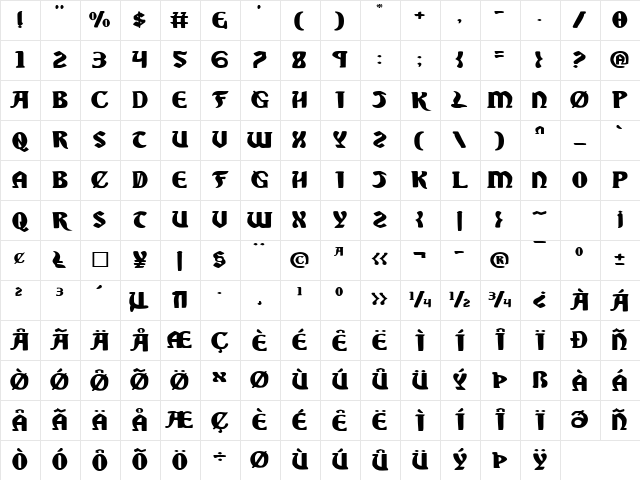
Complete Sable Lion Expanded glyph index. Displaying only characters natively supported by Sable Lion Expanded font.
Sable Lion is a composed and adaptable typeface that performs quietly and consistently across a wide range of design contexts.